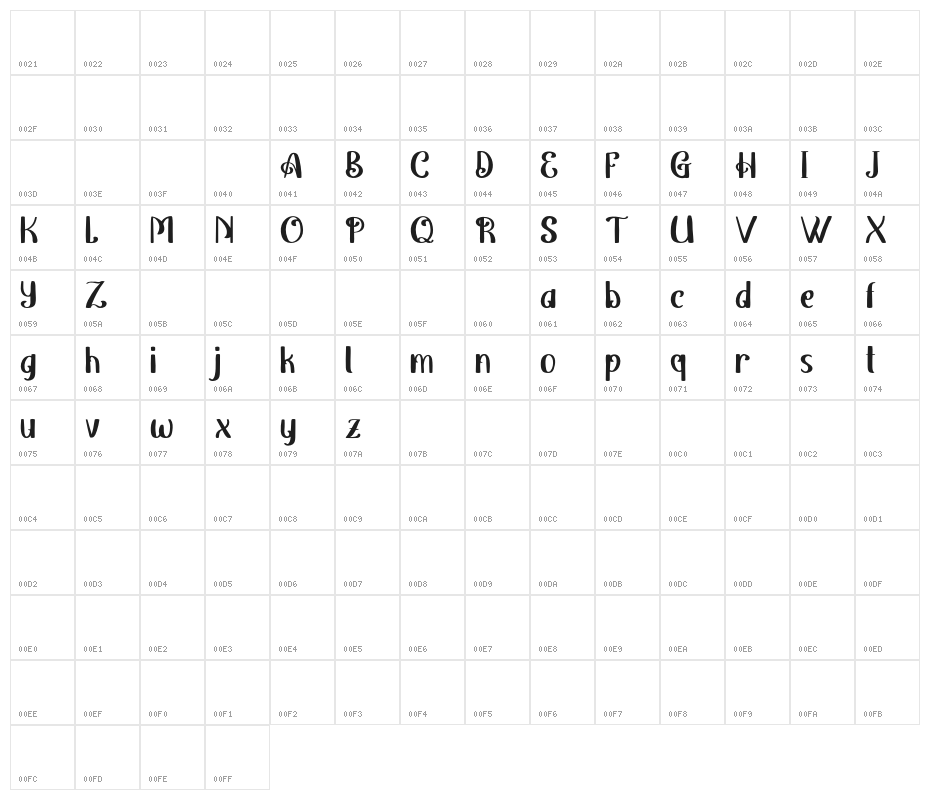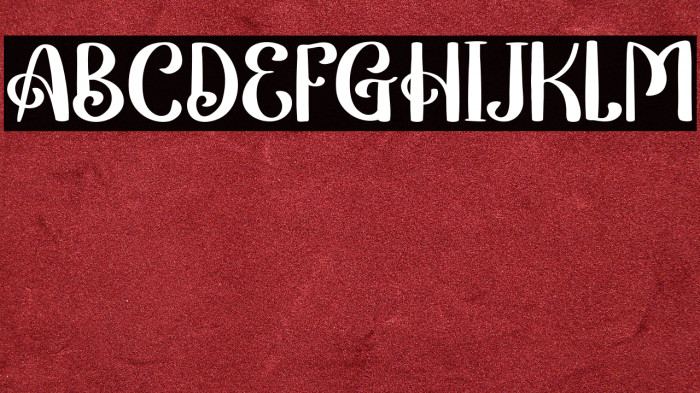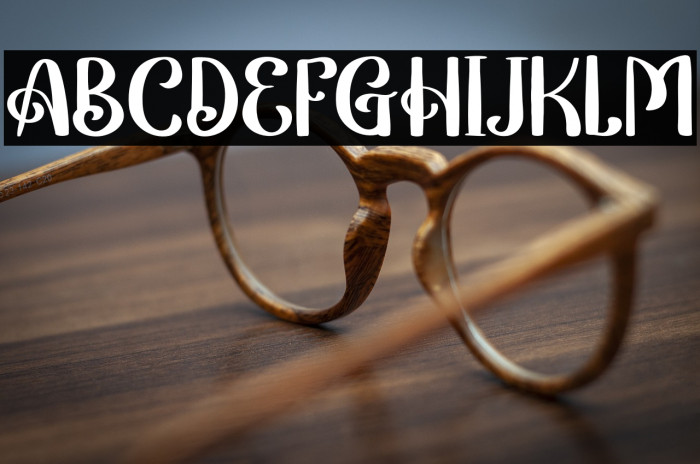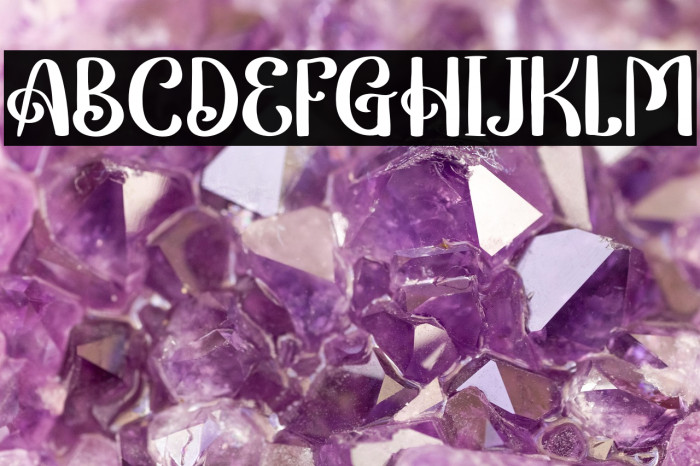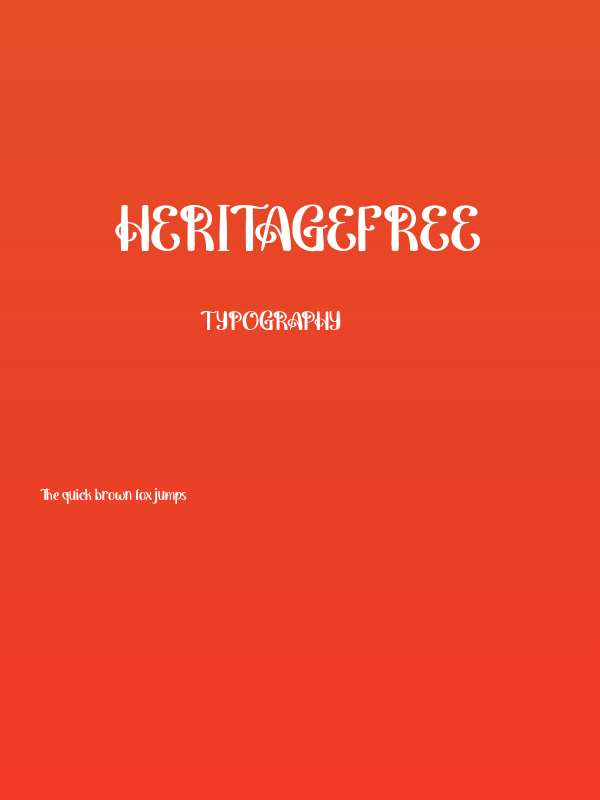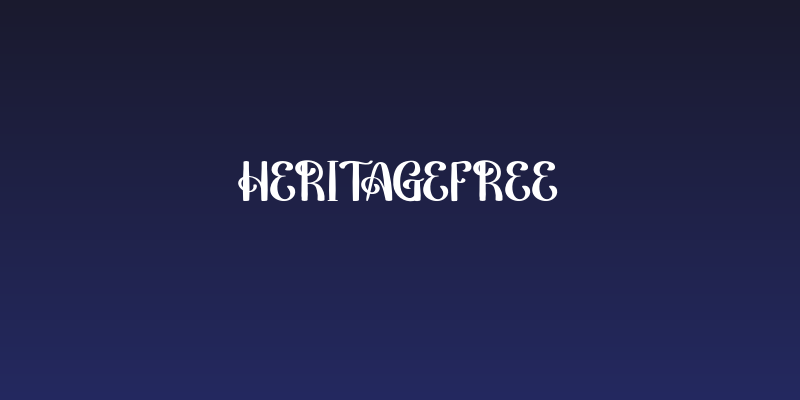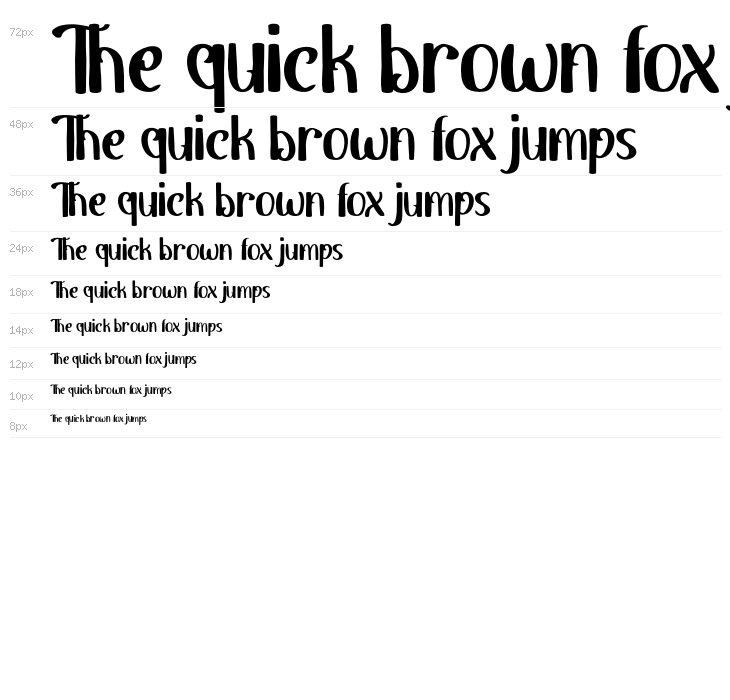
HeritageFREE Font
HeritageFREE Description
This font features a bold and playful design with a whimsical flair. The characters are crafted with a unique blend of curves and straight lines, giving it a distinctive appearance. The uppercase letters exhibit a strong presence with decorative elements, while the lowercase letters maintain a consistent style that complements the overall look. The font's bold strokes and artistic touches make it suitable for creative and eye-catching designs. It combines a sense of fun with elegance, making it versatile for various applications.
| Overall Style | Playful, Artistic |
| Proposed Projects | Ideal for children's books, playful branding, creative posters, and artistic invitations. |